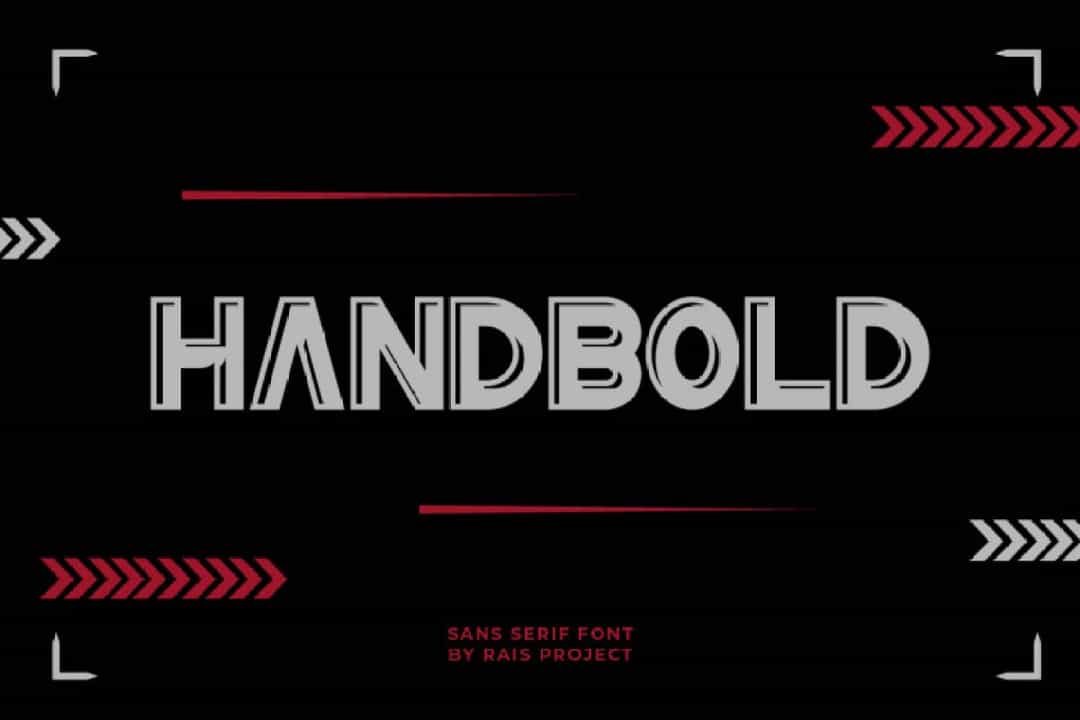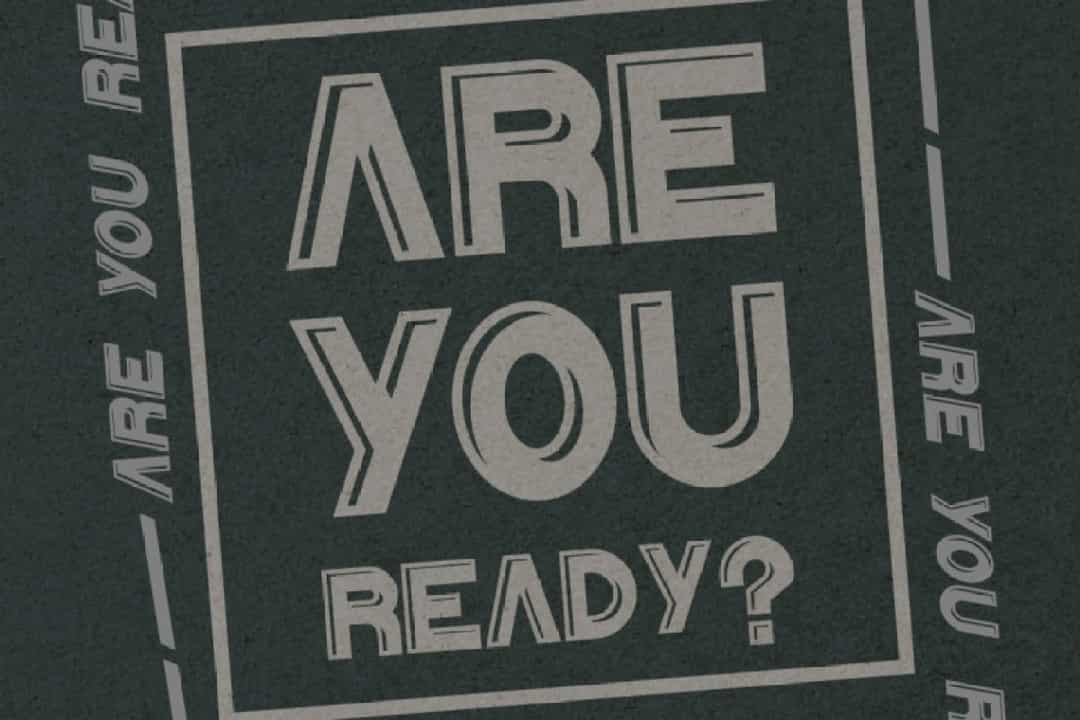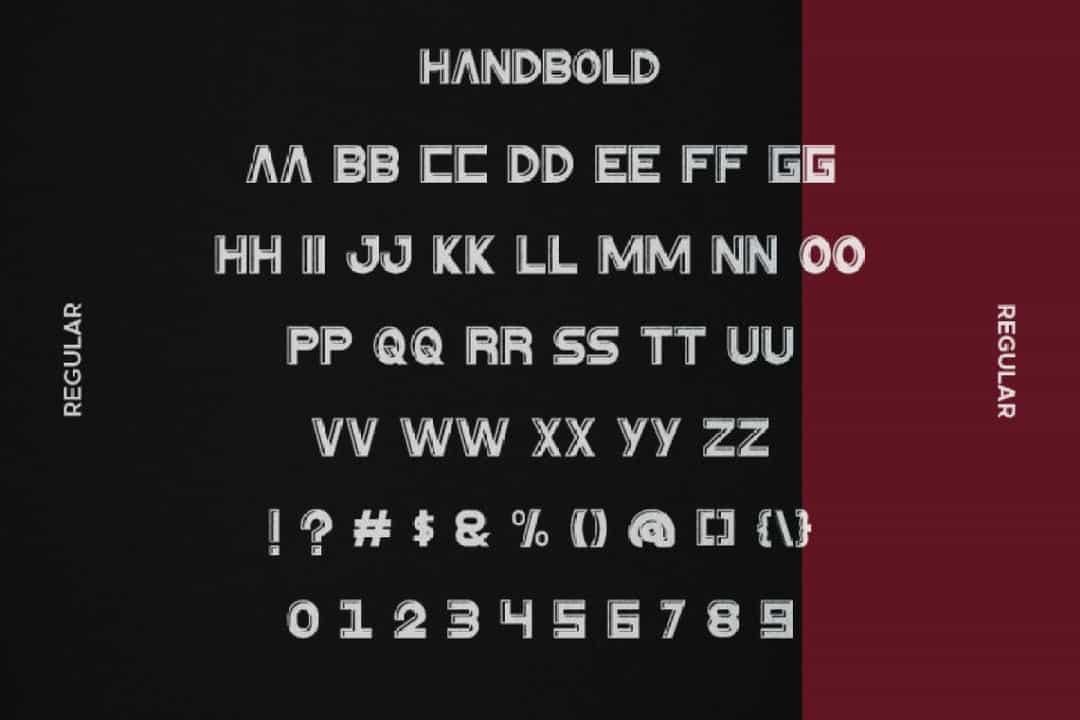
HanBoldis a bold sans serif 3D display typeface designed by hand specifically for use in headlines, promotional events advertising, branding magazine signs, invitations stationery and social media posts labels – among other projects that require its distinctive design. HanBold is ideal for use across industries including Startups, Automotives, Apps, Cosmetic Beauty Technology Gaming Magazine Music Sports etc.